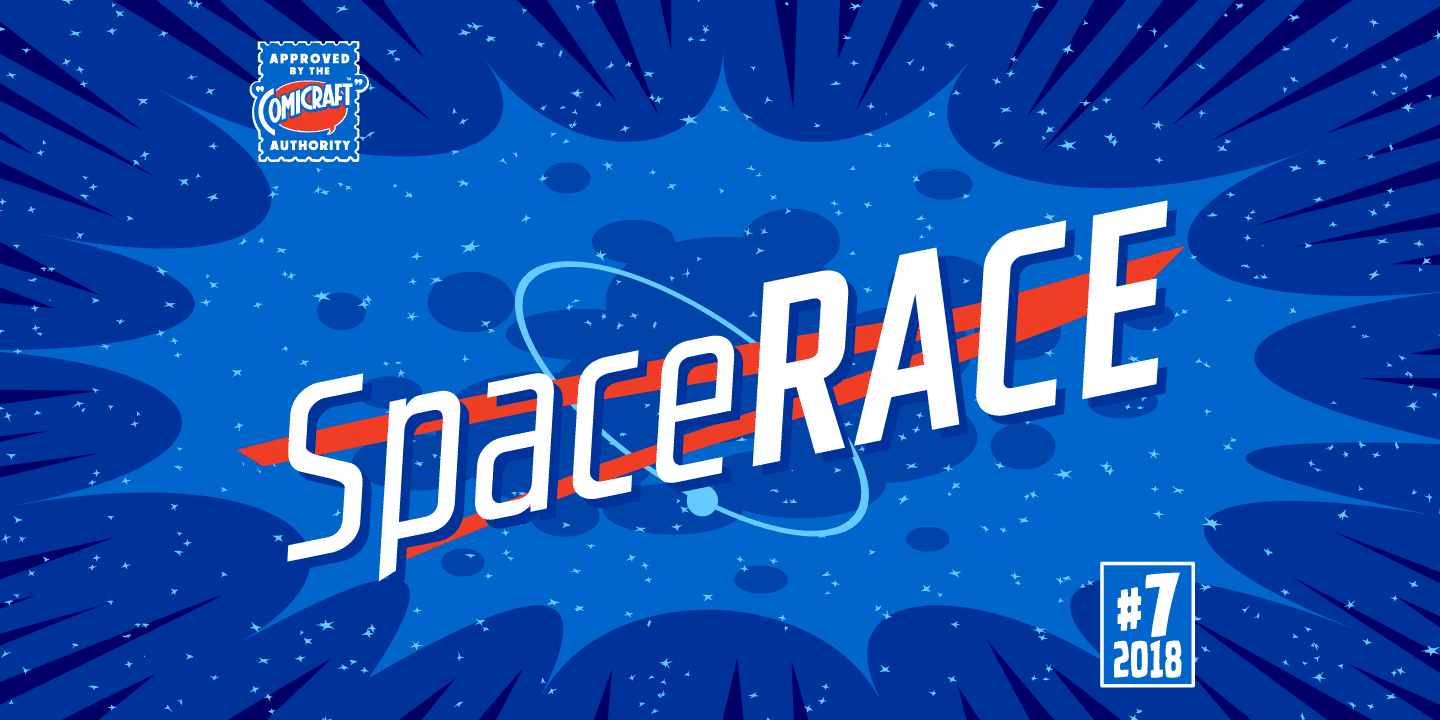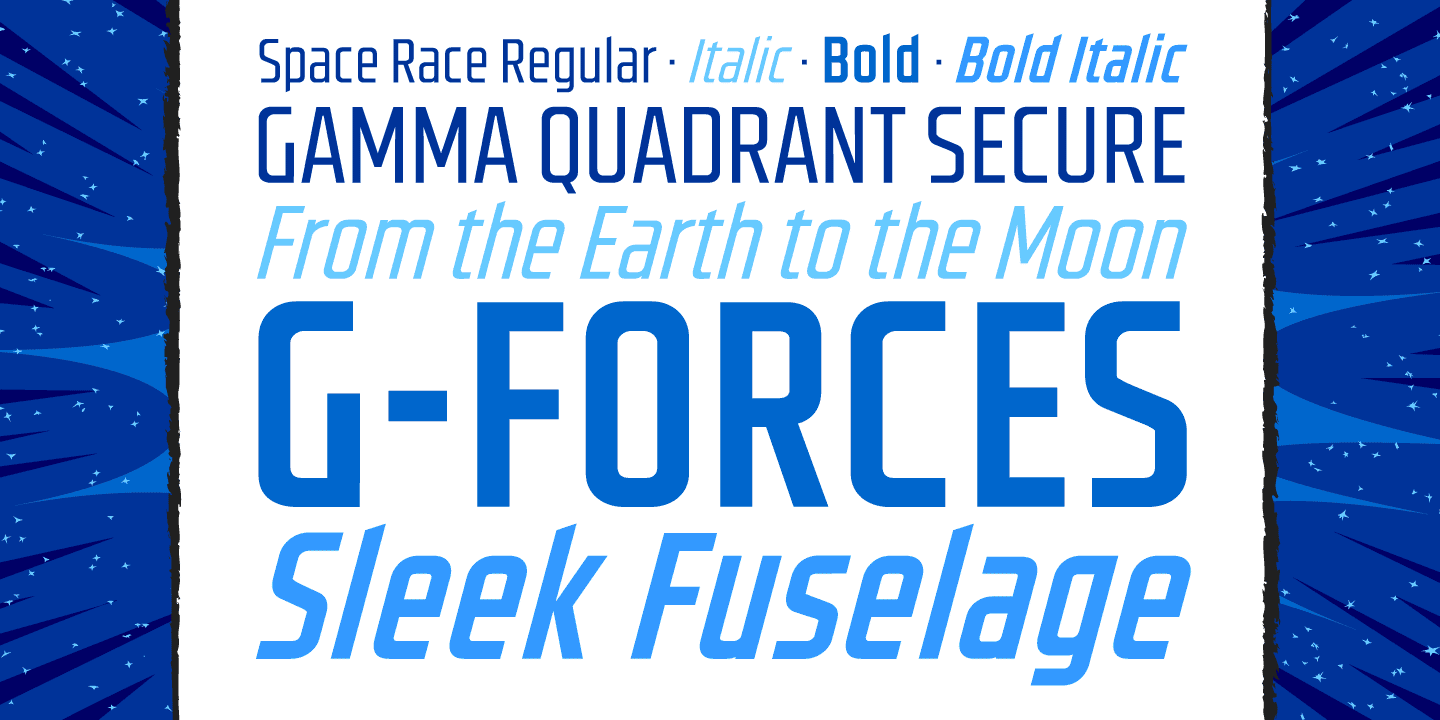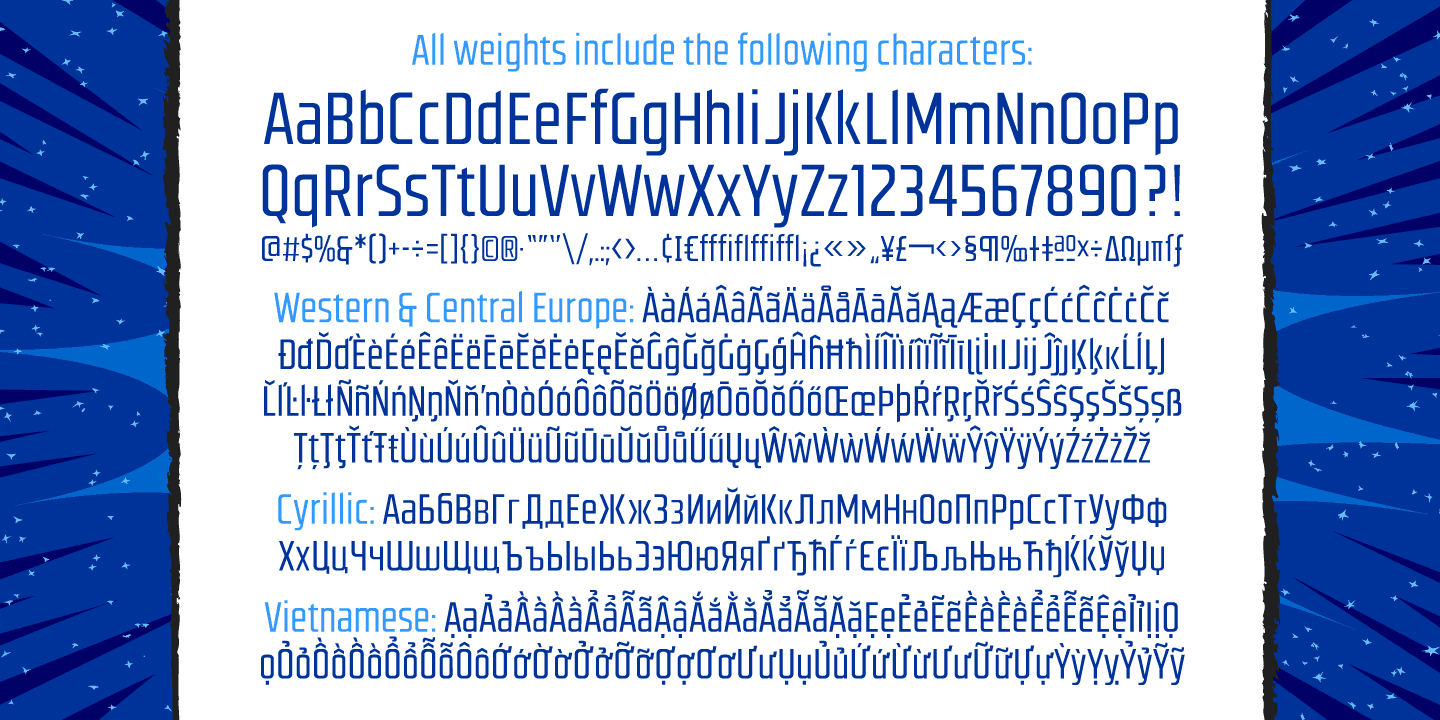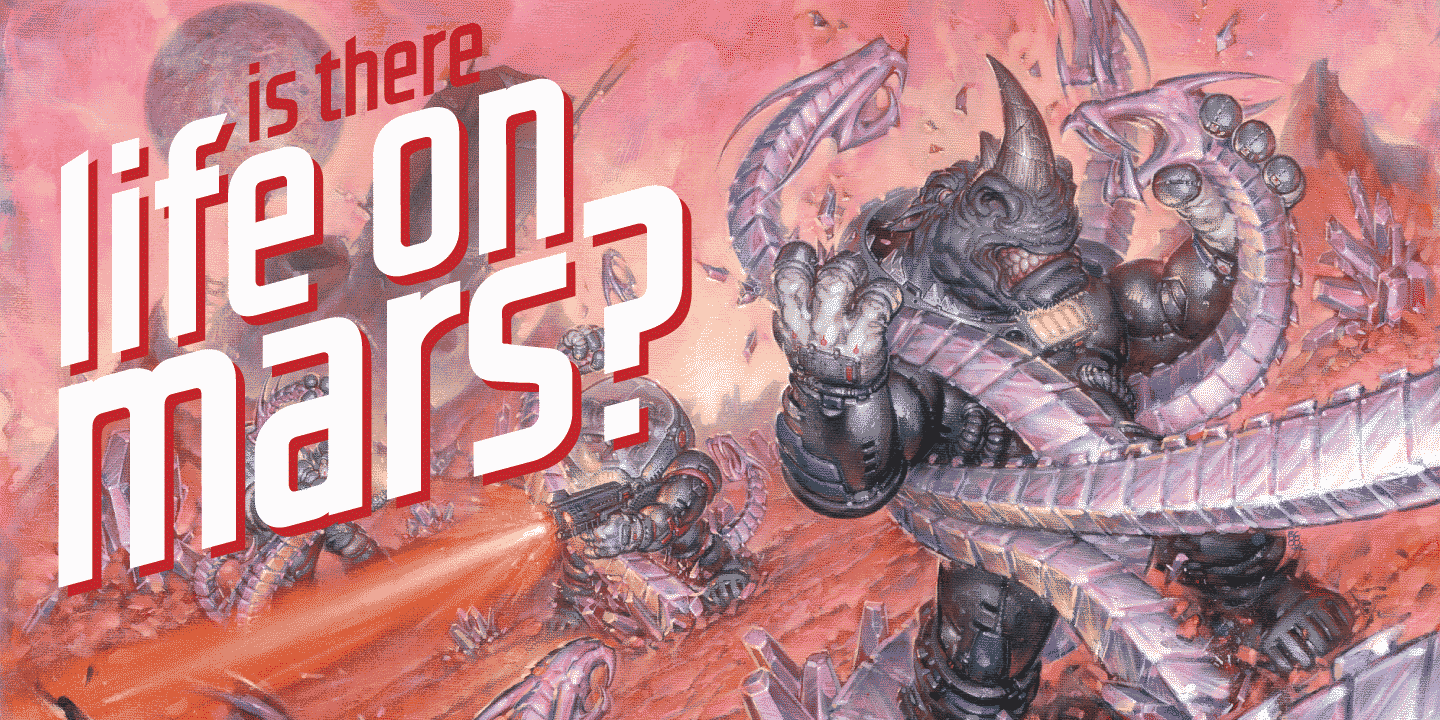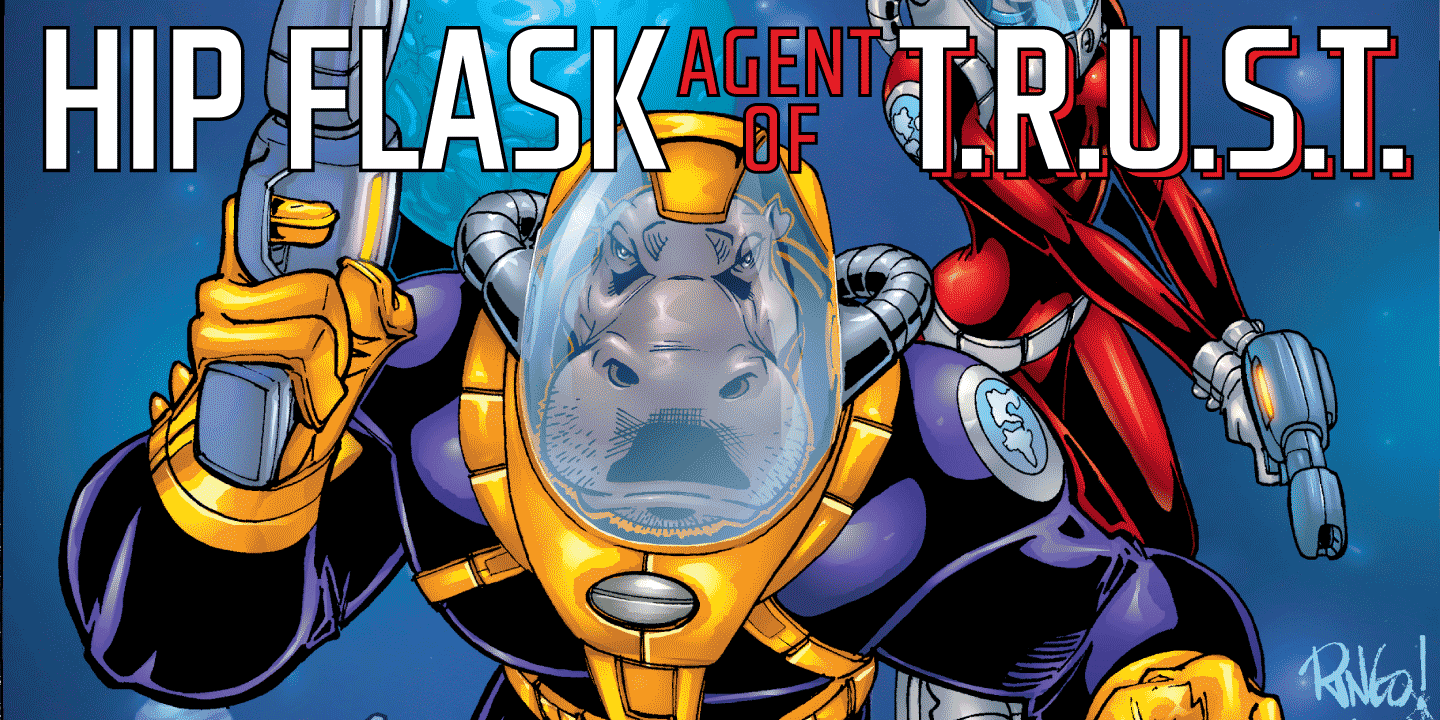
Space Race
Buy NowAttention Space Rangers -- the Race into Space is on again! Science Fiction long ago became Science Fact and scientists are looking Beyond Earth, Beyond the Moon to Mars, Infinity -- and BEYOND!
Comicraft's Ace Rocket Scientist and Secret Weapon, John “Buzz” Roshell has spent years in our Underground Laboratory developing Accelerated Font Technology for the Space Age in which we live. SPACE RACE has curved contours and a sleek fuselage that will ensure our Rangers will be the FIRST WOMEN (and MEN) on planets in this Solar System and those of other stars! Now available for less than the cost of powdered astronaut ice cream.